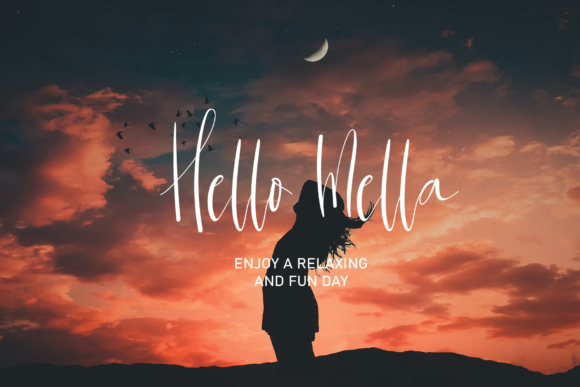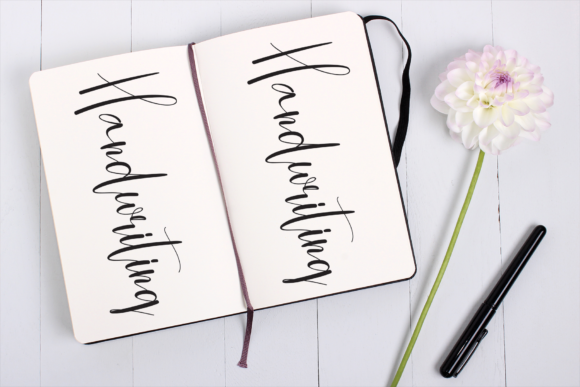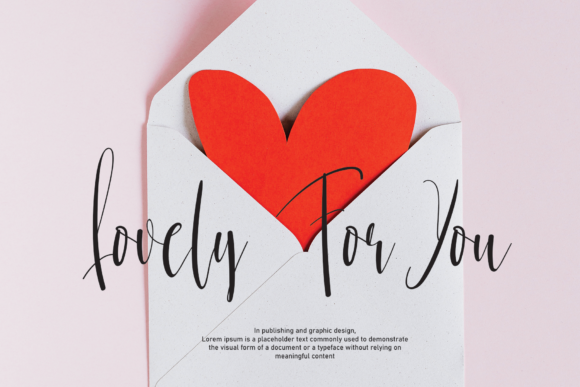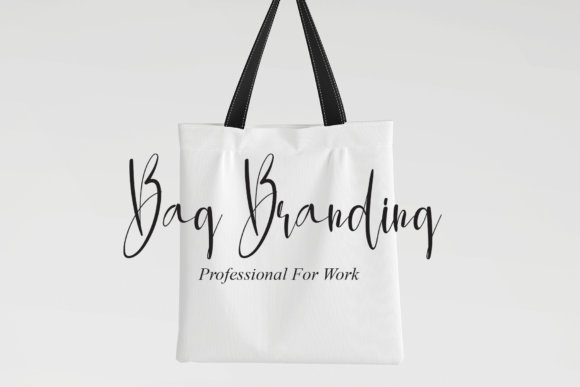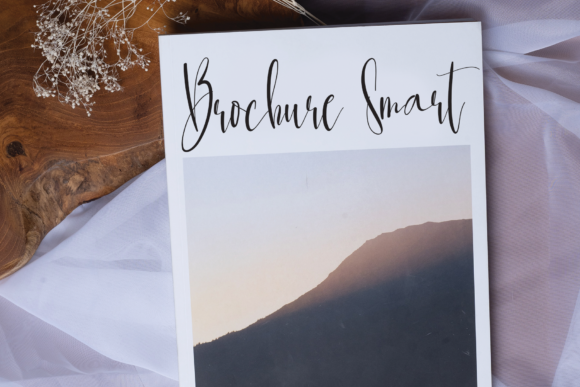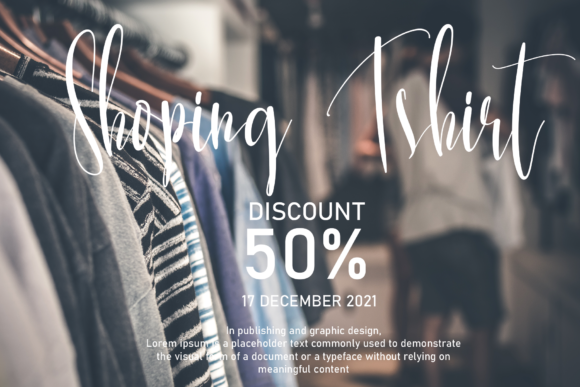
Discover the Timeless Elegance of the Emolka Font
Have you ever found yourself browsing through a fashion magazine, mesmerized by the beautiful typography that brings the editorial content to life? As a designer, you know that the right font can elevate your project from ordinary to extraordinary. That’s where the Emolka Font comes in – a stunning script font that exudes sophistication and style.
With its smooth curves and well-balanced design, the Emolka Font is perfect for fashion branding or editorial designs. Its versatility and elegance make it an invaluable addition to any designer’s toolkit. Whether you’re working on a high-end fashion campaign or a trendy blog, the Emolka Font is sure to add a touch of sophistication and refinement to your projects.
Emolka Font Key Features
- Font Size: The font comes in multiple weights, from Light to Bold, allowing for a range of design applications and styles.
- Unique Characteristics: Emolka Font features a unique blend of modern and vintage elements, with intricate details and subtle texture, making it suitable for creative and artistic projects.
- Design Style: The font’s design style is characterized by flowing lines, elegant curves, and a touch of whimsy, making it perfect for branding, packaging, and editorial design projects.
Emolka Font Review
Overall, I’m quite impressed with the Emolka Font, but like any font, it has its strengths and weaknesses.
- The Emolka Font is perfect for projects that require a touch of playfulness and modernity. Its unique design is sure to stand out.
- The font is highly legible, even at smaller font sizes, making it suitable for a wide range of applications.
- The font’s versatility is impressive, and it can be used for both digital and print projects.
- The Emolka Font may not be the best choice for projects that require a more formal or traditional look.
- The font’s design may be too bold for some applications, so it’s essential to use it in moderation.
- The font’s font pairing options are limited, which may require some experimentation to find the perfect match.
Overall, I would give the Emolka Font a solid 8 out of 10. While it has some limitations, its unique design and versatility make it a great choice for many projects. With some careful consideration and experimentation, the Emolka Font can be a valuable addition to any designer’s toolkit.
Emolka font is ideal for creating modern and sophisticated designs, making it suitable for a wide range of applications, including social media graphics, business cards, brochures, marketing materials, presentations, and reports.